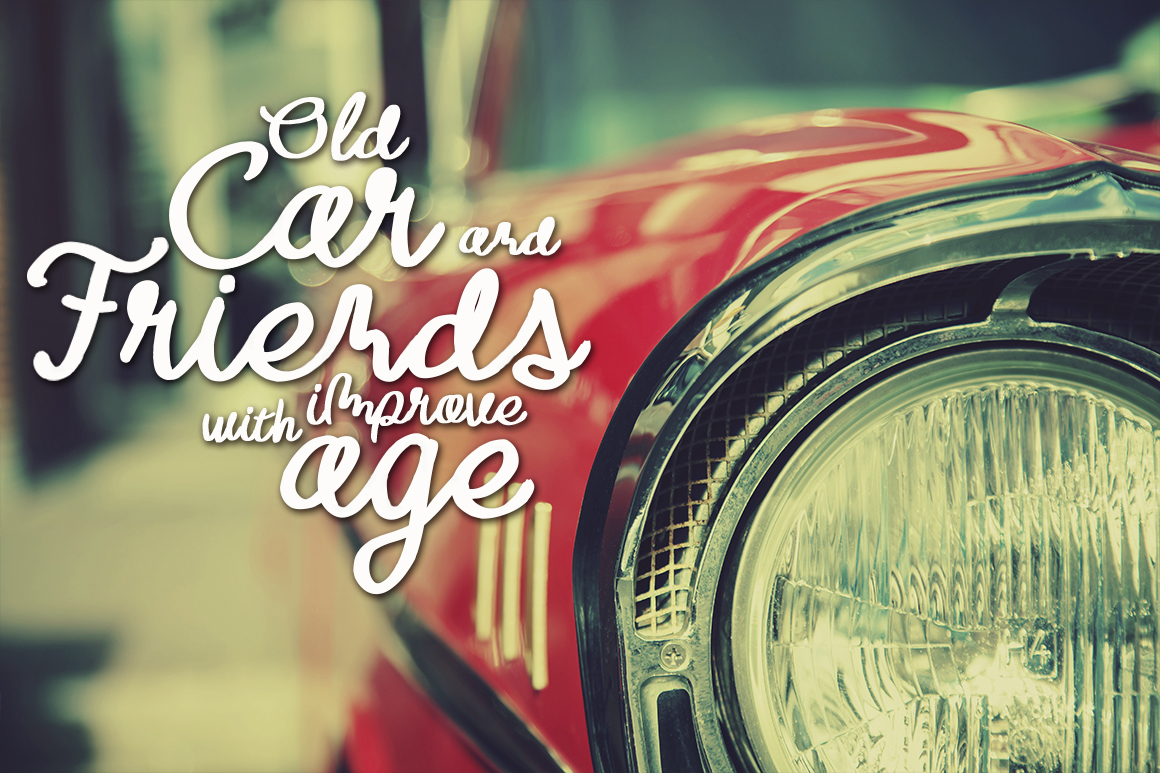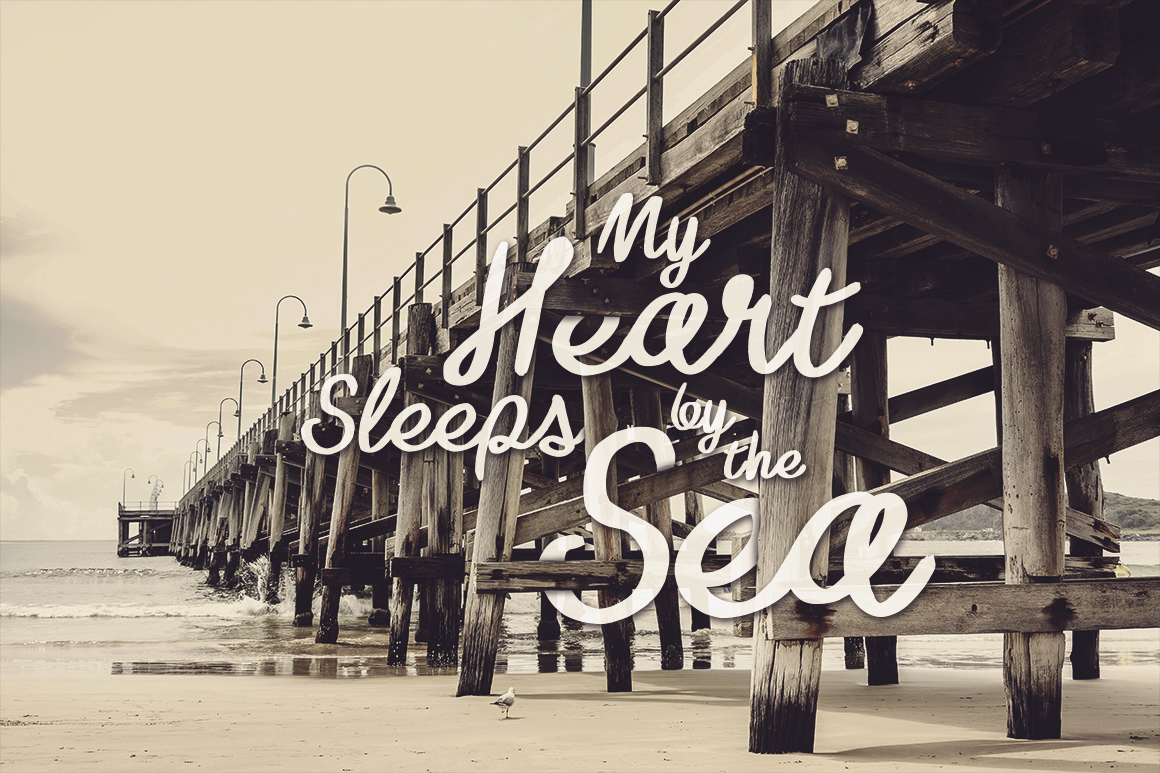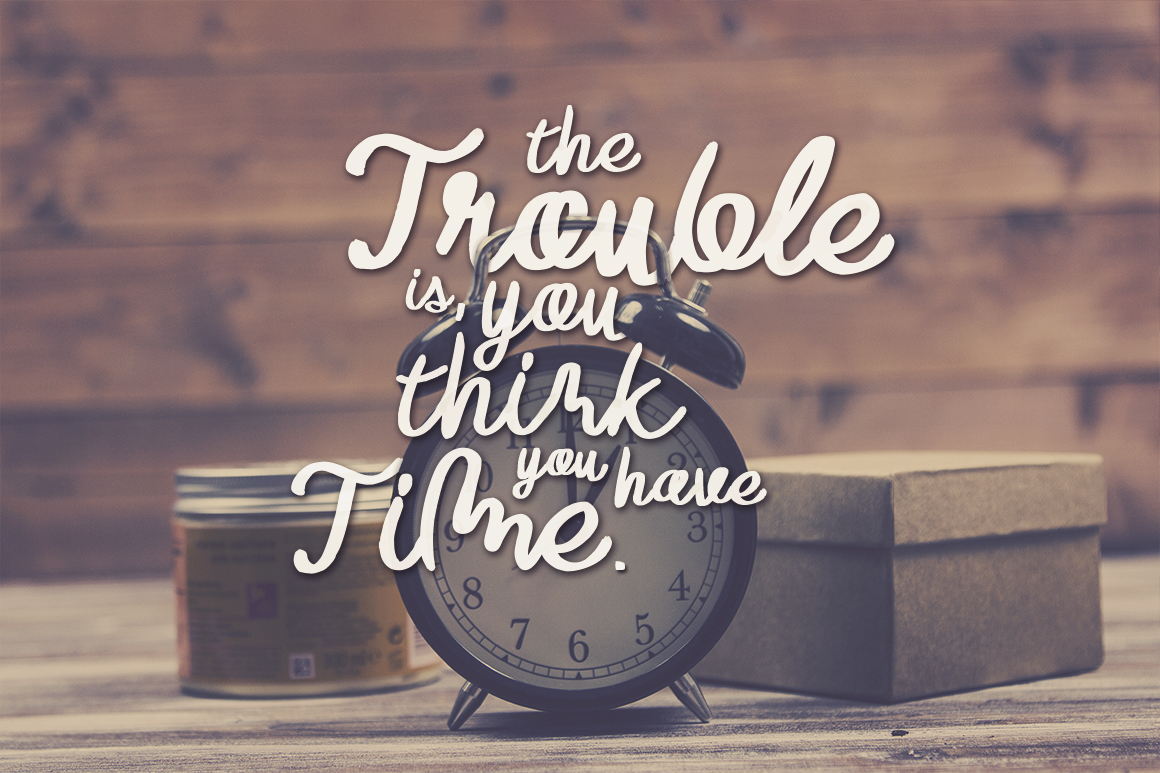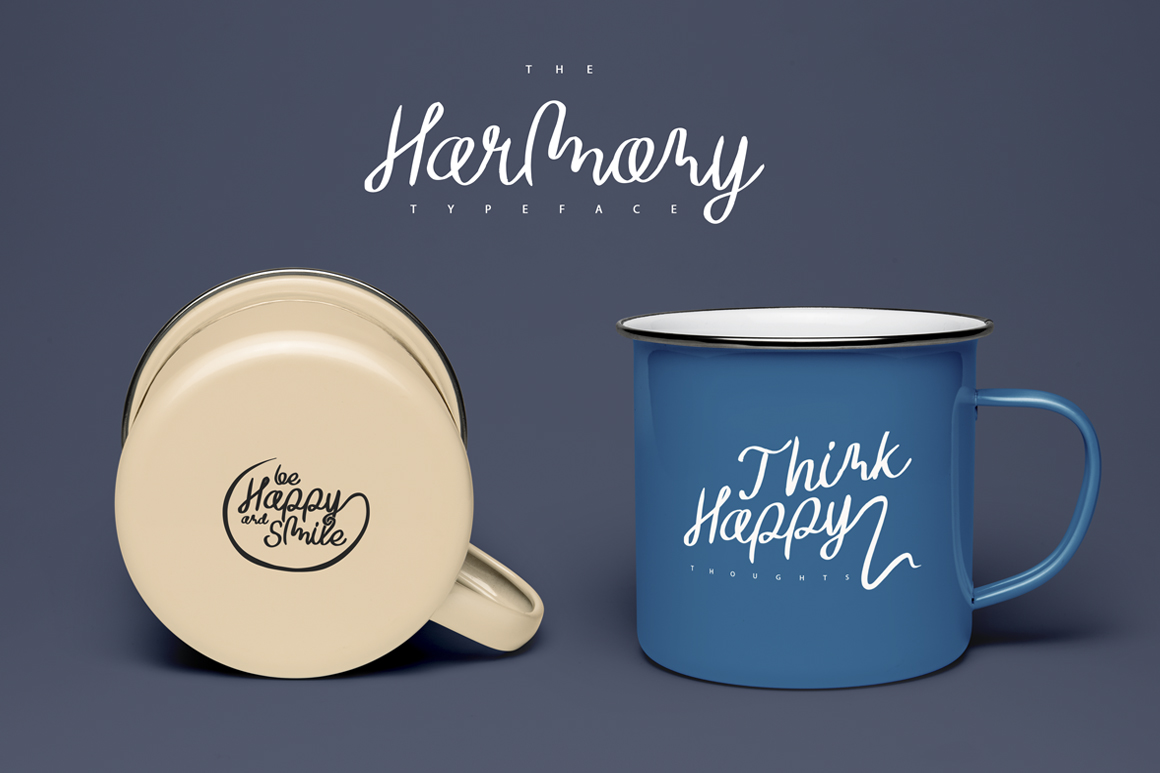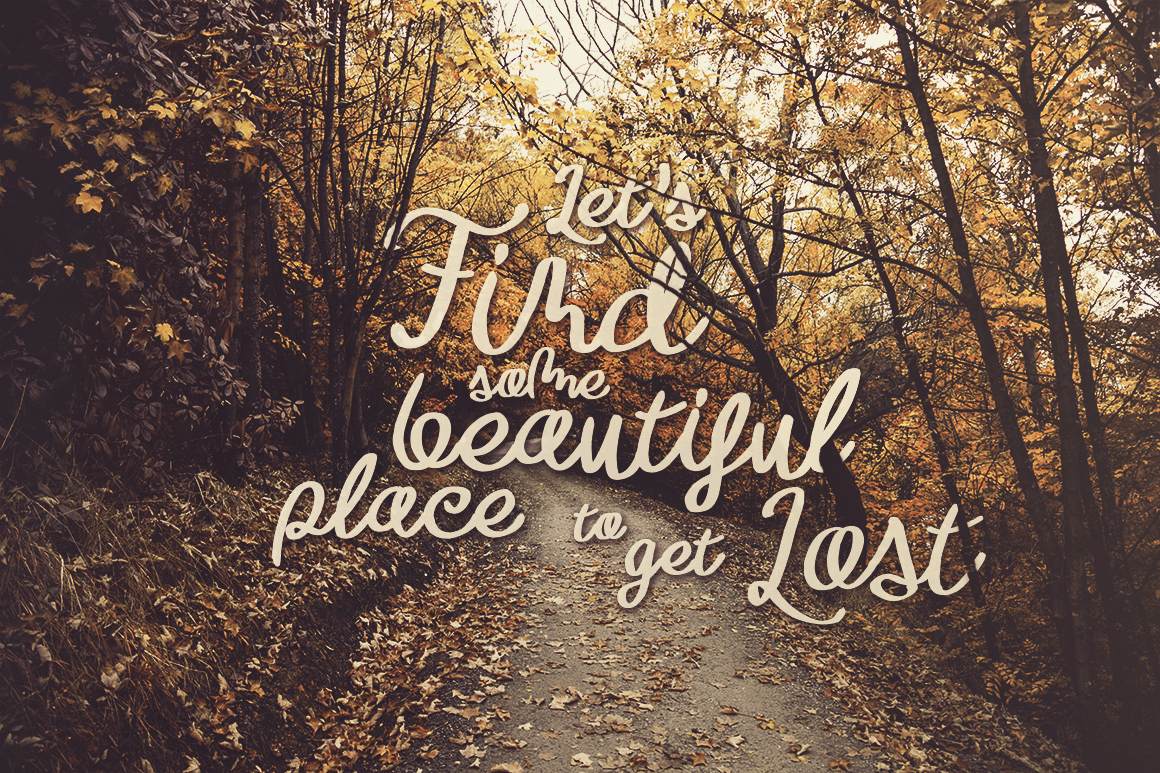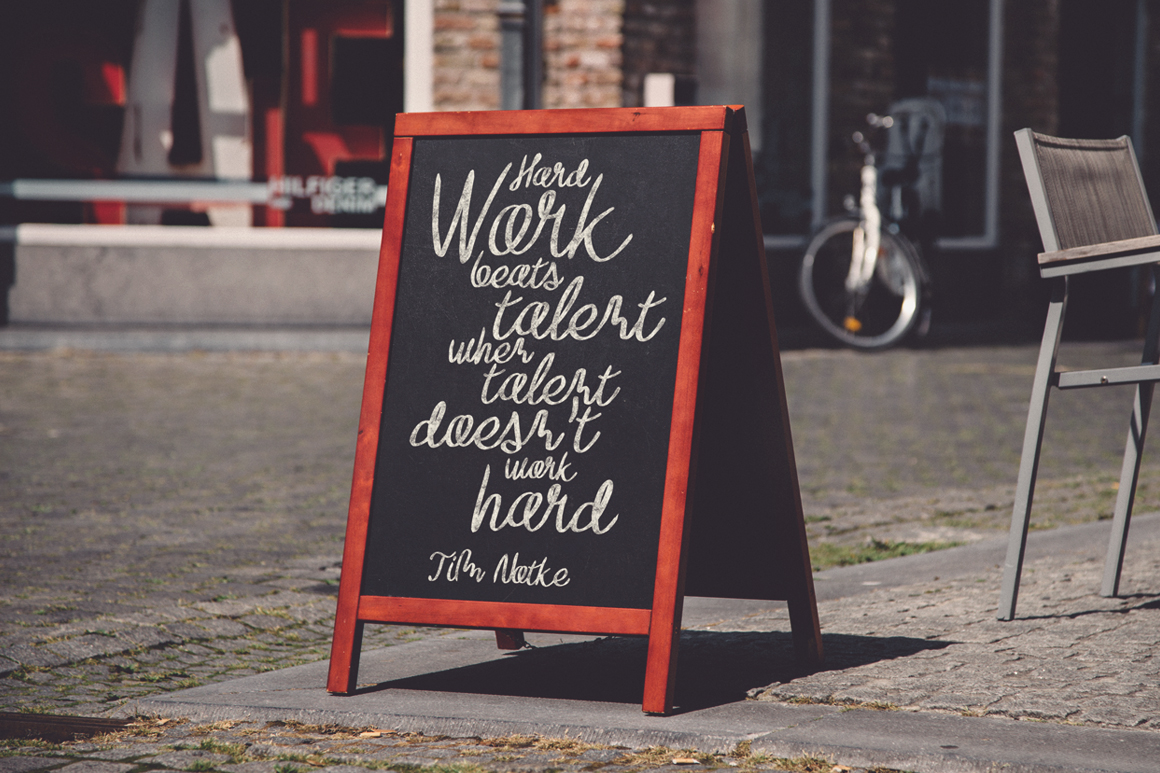
HomeScript FontsThe Harmony Font Script Fonts The Harmony Font FacebookXPinterestWhatsApp The Harmony Font Poster 2 The Harmony Font Poster 3 The Harmony Font Poster 4 The Harmony Font Poster 5 The Harmony Font Poster 6 The Harmony Font Poster 7 About The Harmony Font The Harmony is a playful handwritten font created by Pere Esquerrà . DOWNLOAD ON CREATIVE FABRICAThis font is sold and delivered by Creative Fabrica. Font Canyon may earn a commission if you buy through this link. People also explored Bluelight Font Eloquence Font Santorini Submarines Font Wondering Notes Font February Font Summer Hellow Font Xenu Panda Font Bougenville Font 364 0 TagsThe Harmony Font Previous articleThe Stopped FontNext articlePhilosophy Script Font LEAVE A REPLY Cancel reply Comment: Please enter your comment! Name:* Please enter your name here Email:* You have entered an incorrect email address! Please enter your email address here Website: Save my name, email, and website in this browser for the next time I comment. Personal Use Free Bosk Personal Use Free Read more about this font Anggraini Personal Use Free Read more about this font Pattern Personal Use Free Read more about this font Vembazax Rm Personal Use Free Read more about this font BLOG Best Fonts for YouTube Videos: Make Your Thumbnails Stand Out Best Fonts for YouTube Videos: Make Your Thumbnails Stand Out Choosing the right font can make a massive difference in how your YouTube videos perform.... Top 7 Google Fonts Alternatives for Faster and Privacy-Friendly Web Design (2025) How to Install and Use Fonts on Windows, macOS, and Web Projects Free vs Paid Fonts: Why Investing in Premium Fonts Is Worth It